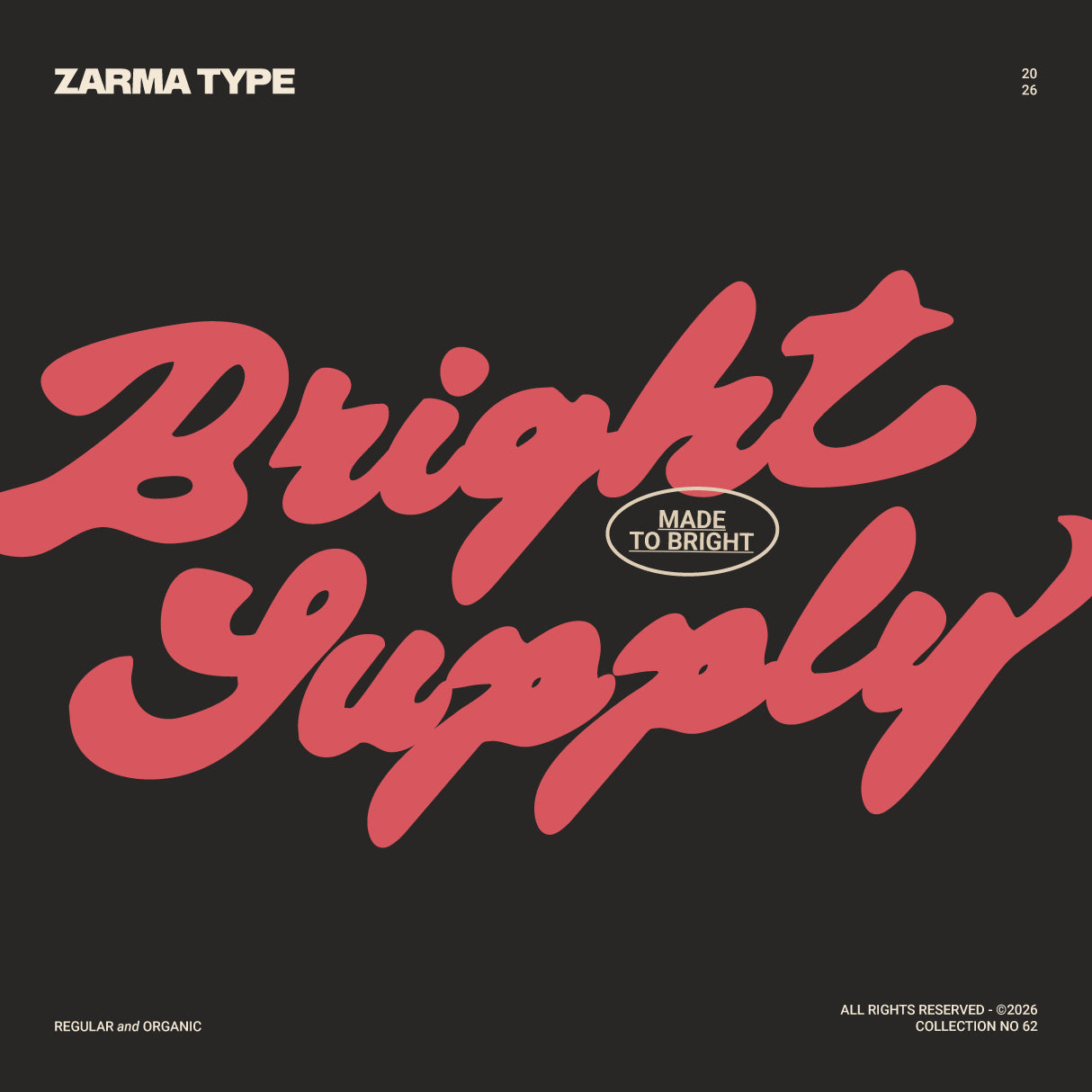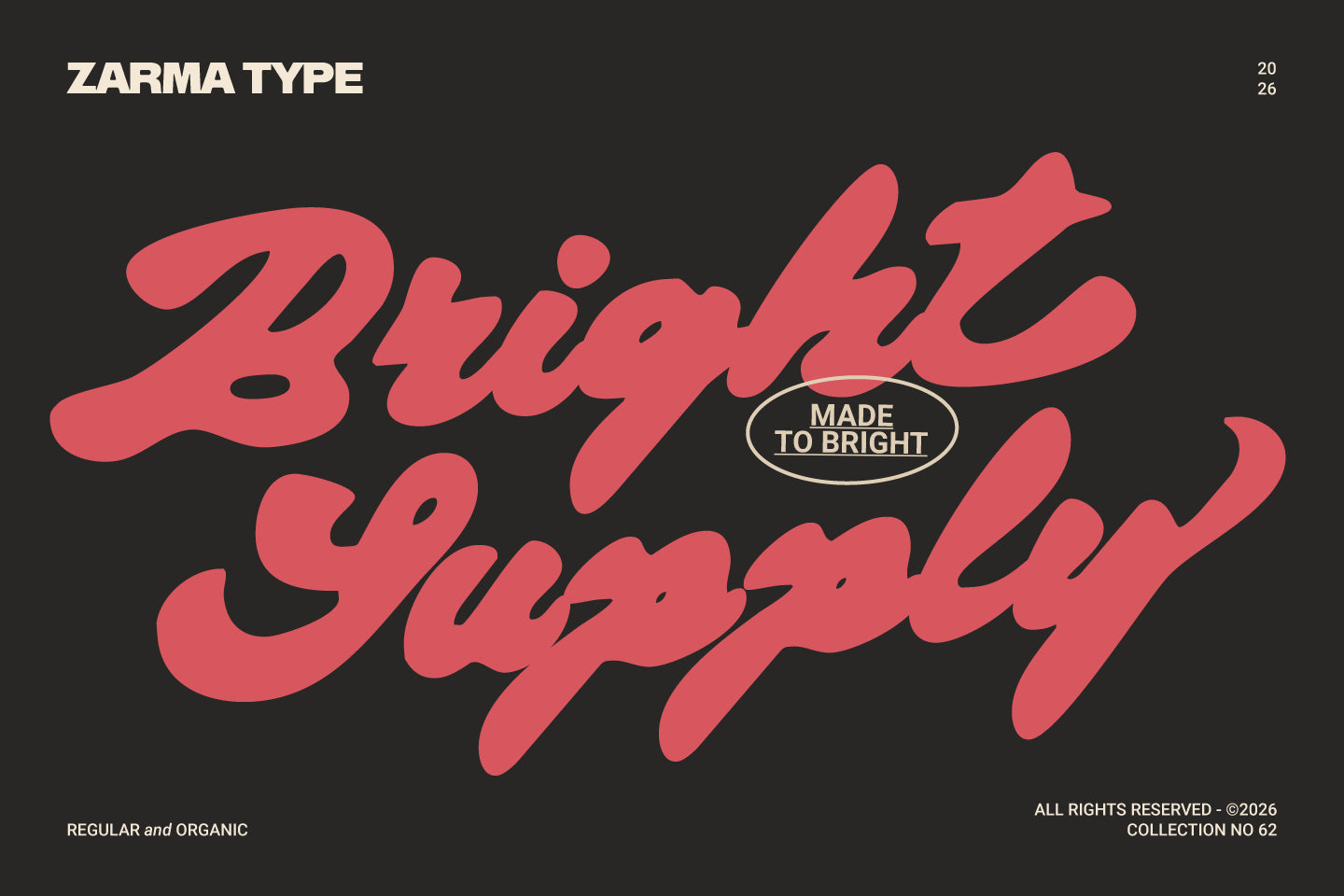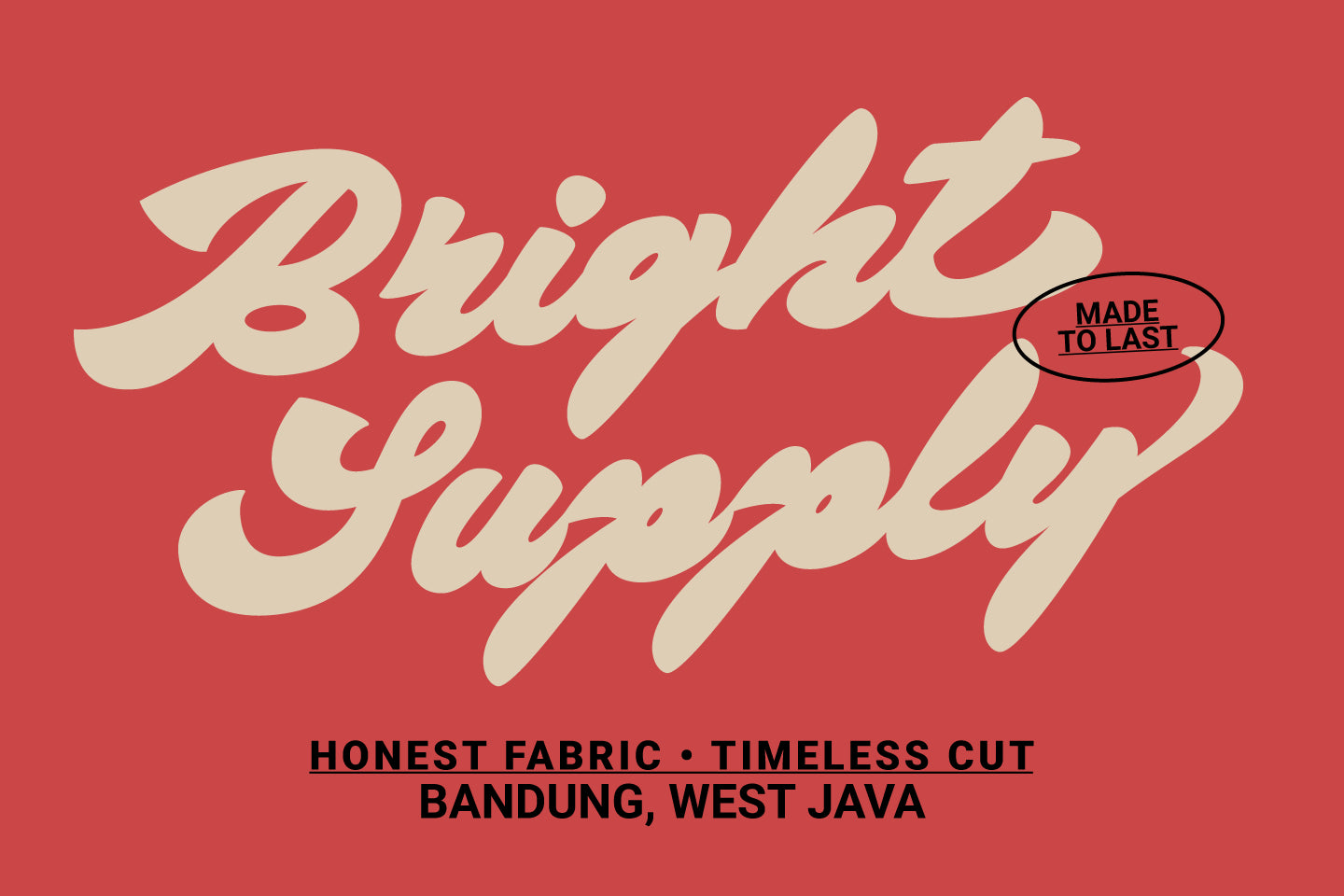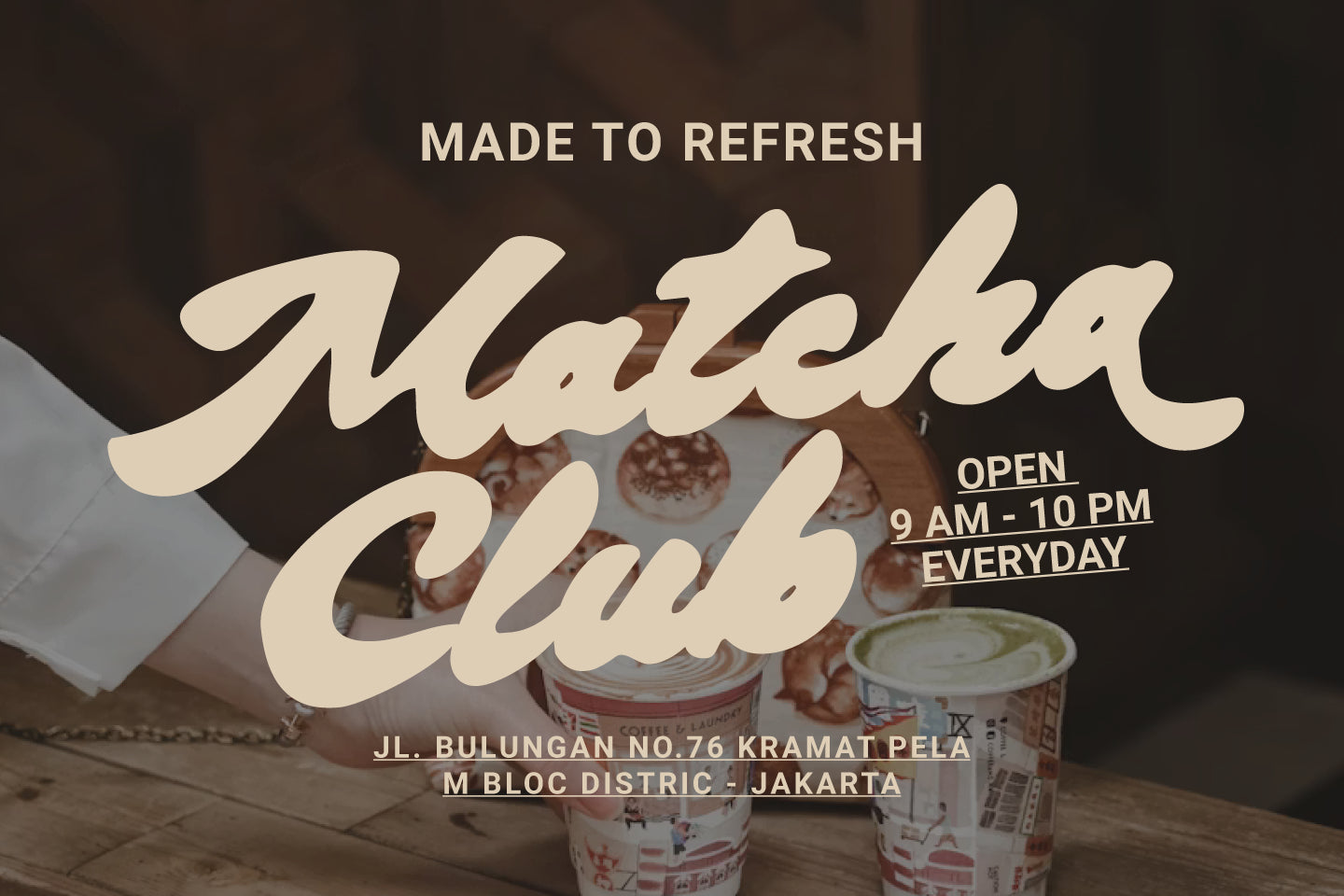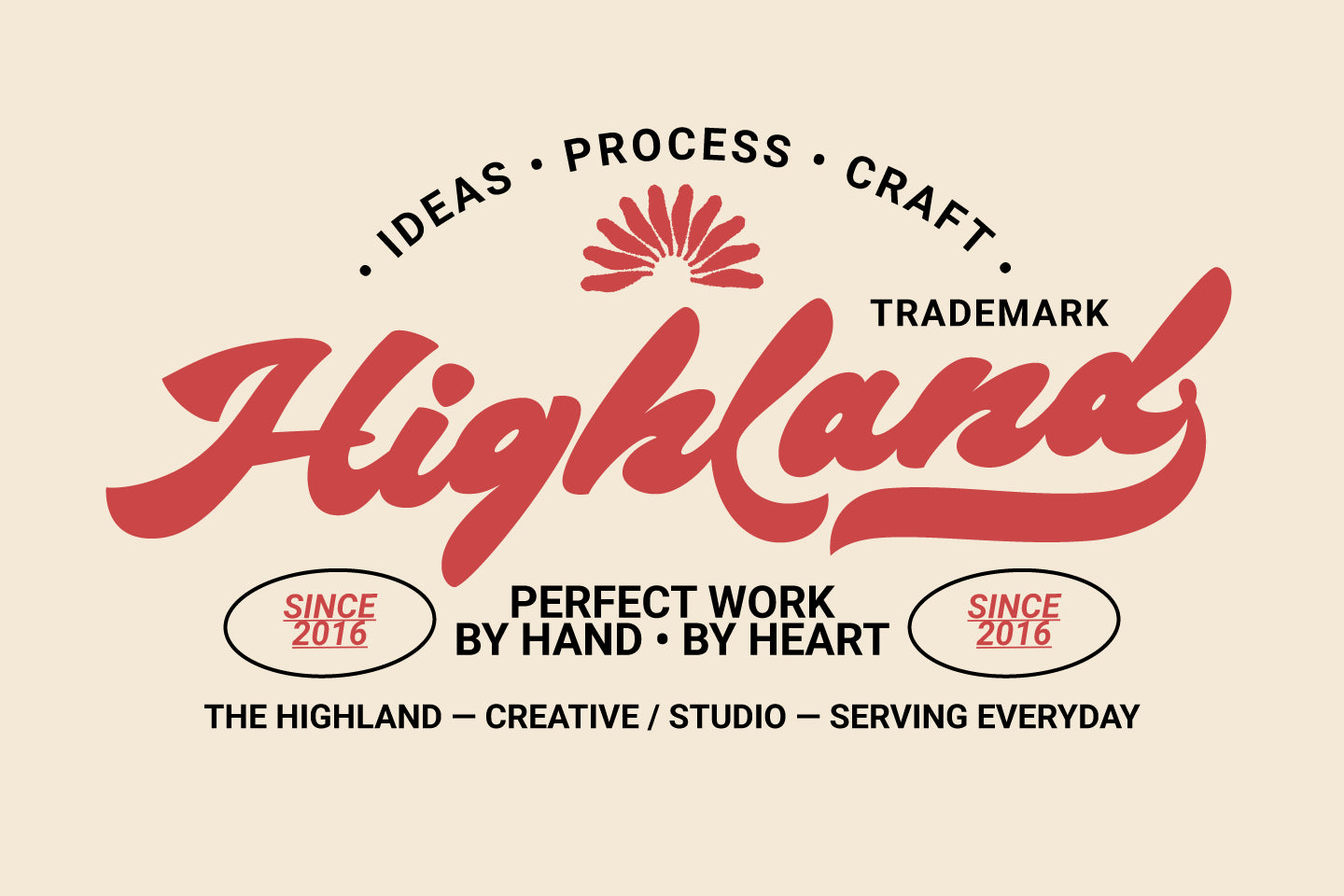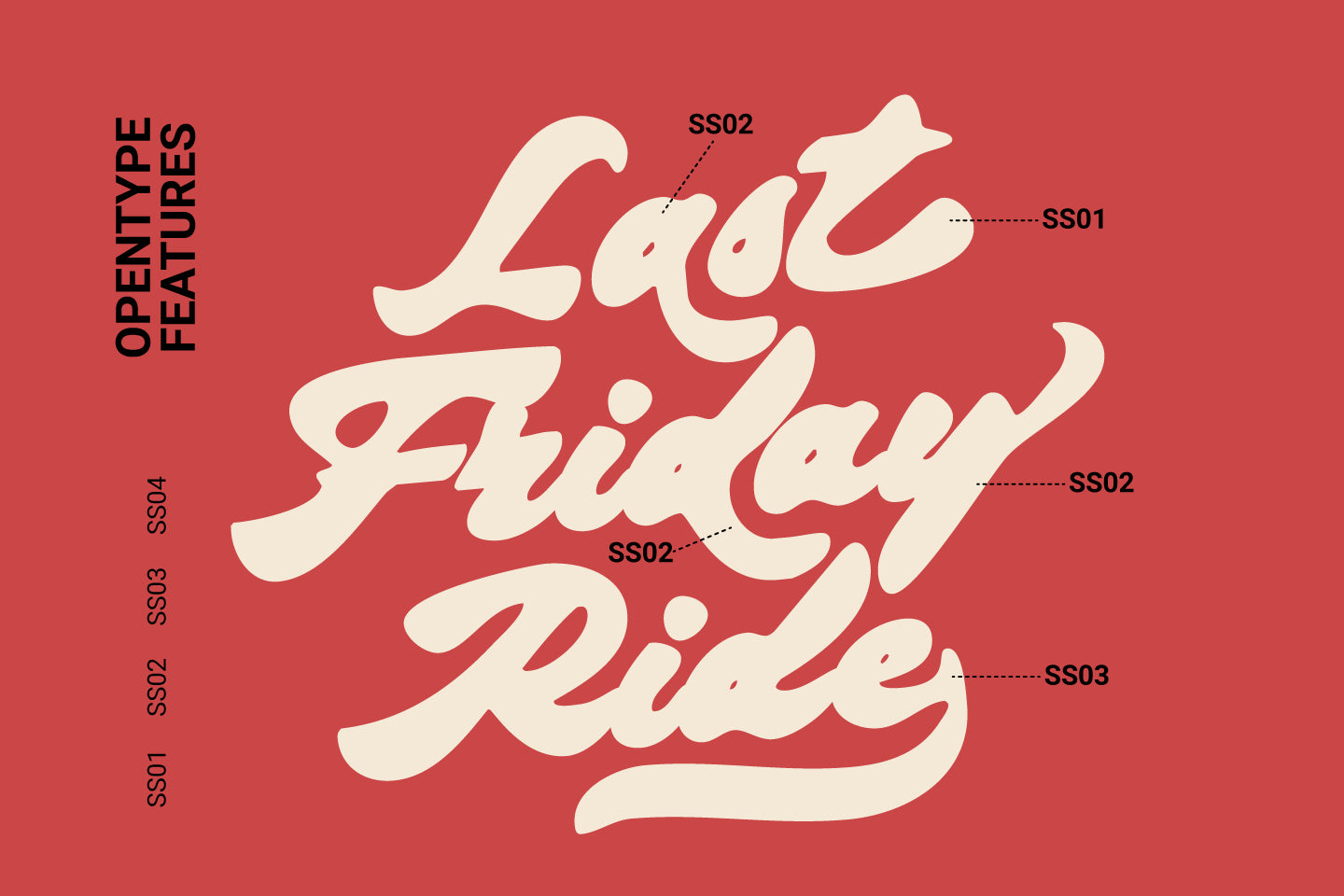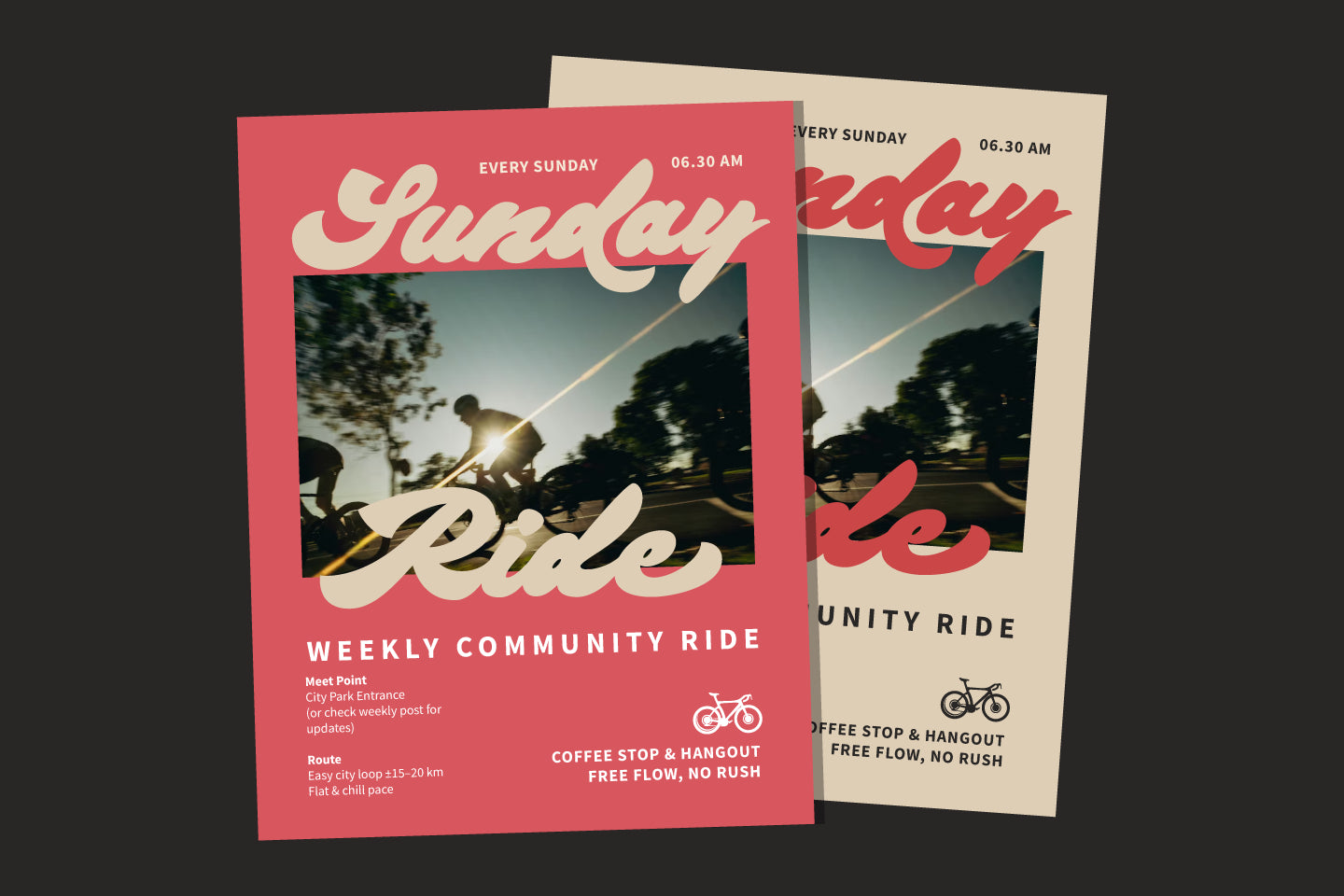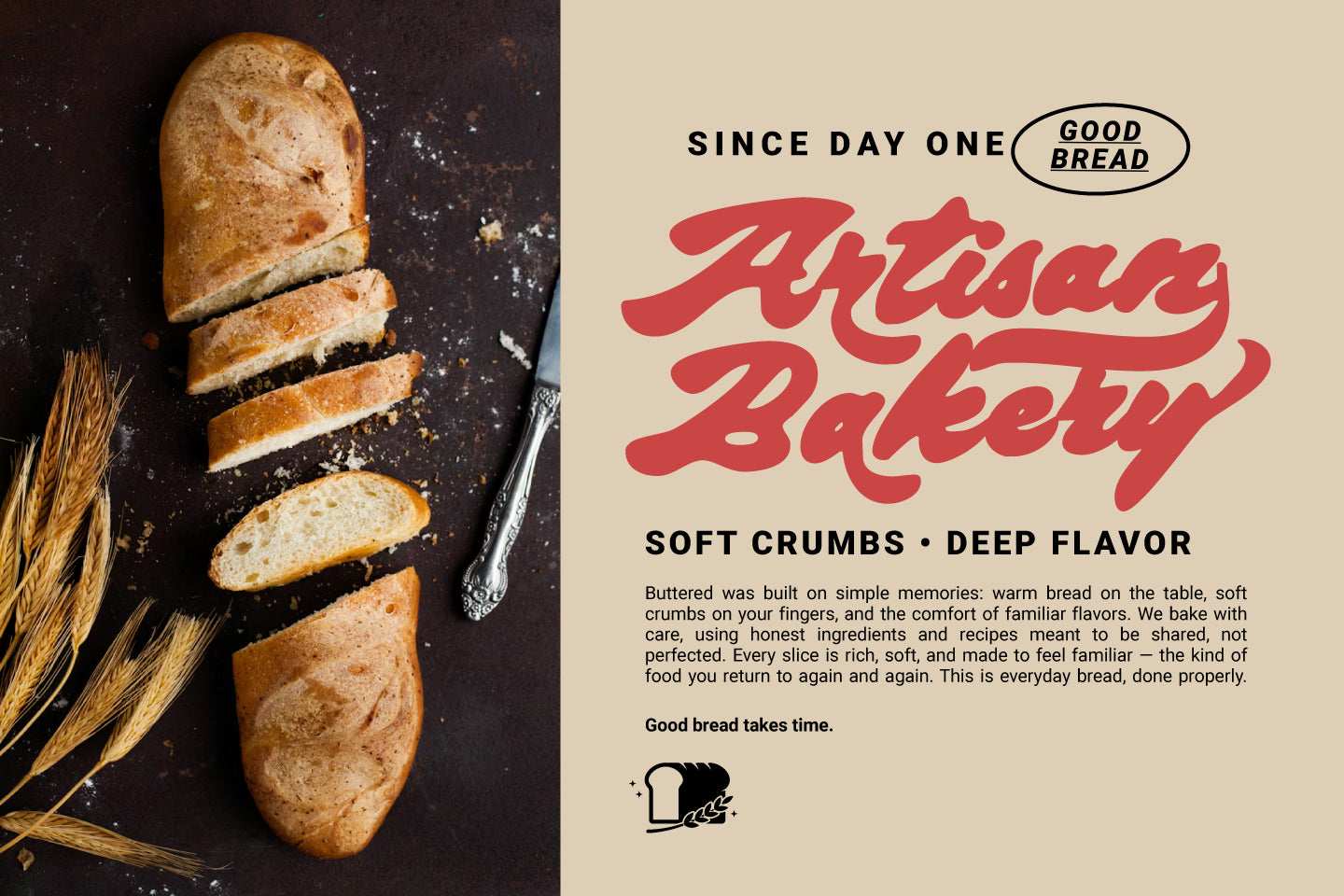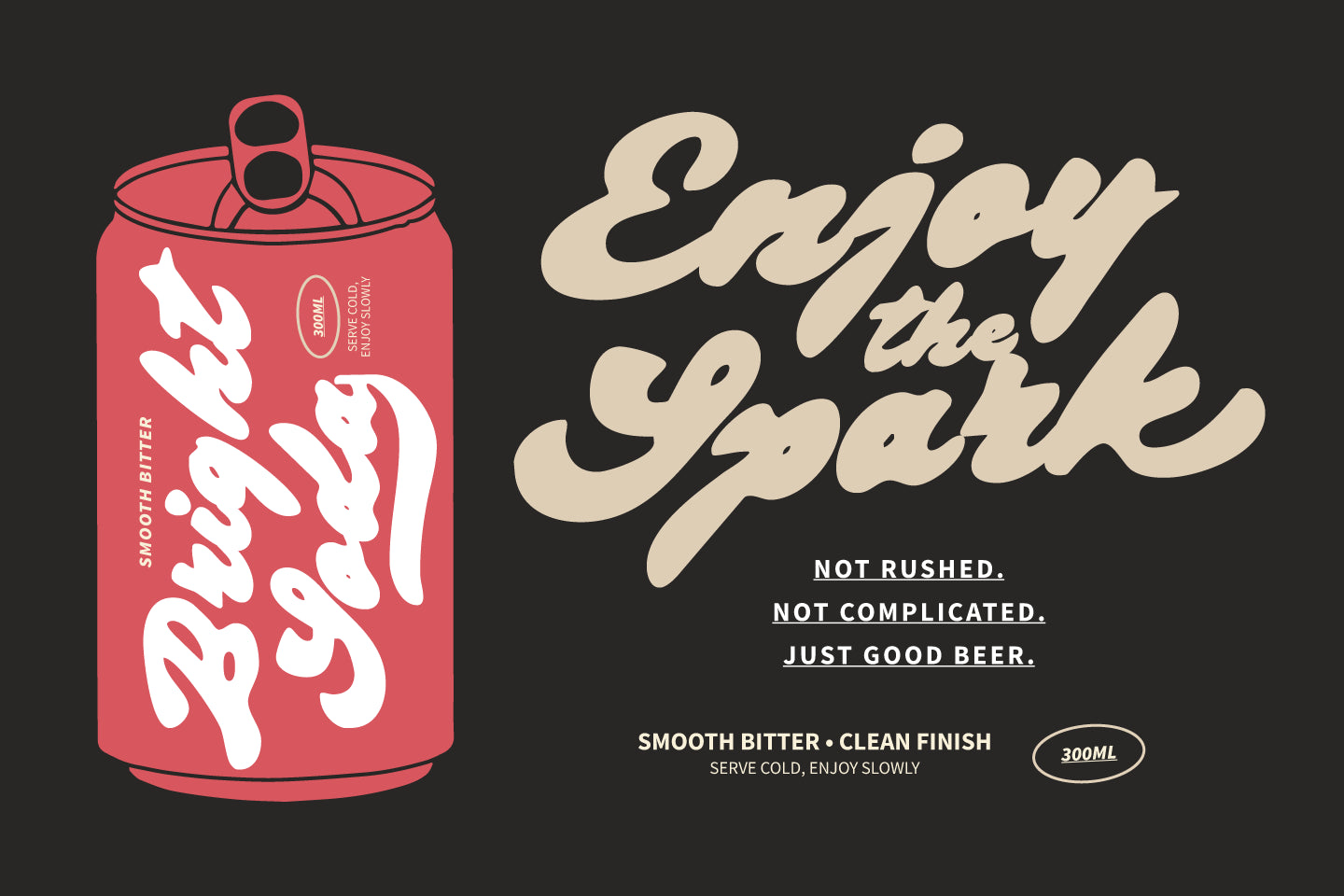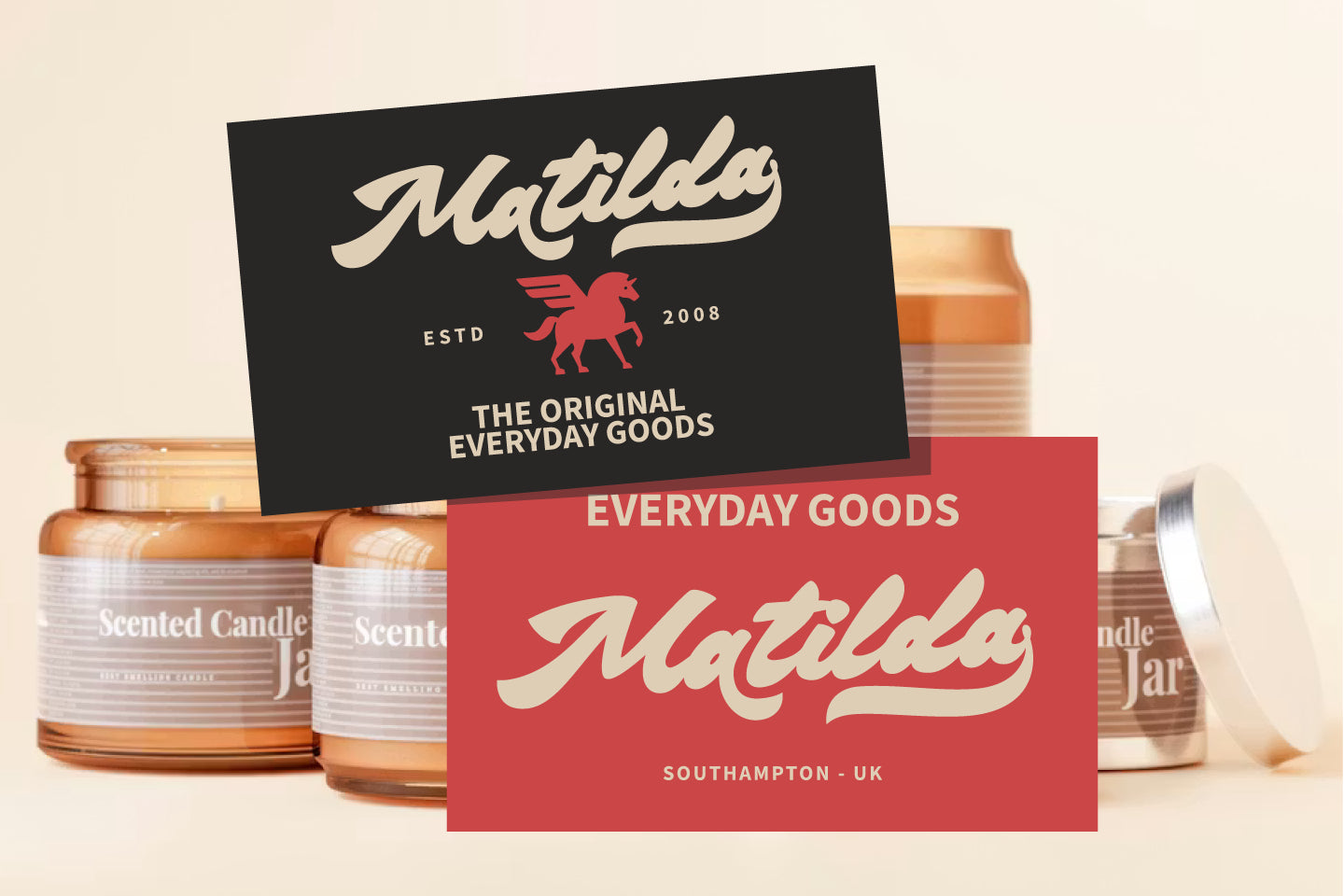
Bright Supply Font
Bright Supply is a bold Script Font designed to bring warmth, confidence, and handcrafted character into every design. Featuring thick flowing strokes, rounded curves, and expressive lettering, it creates eye-catching typography that feels both timeless and approachable. Available in 2 Script Styles—Regular and Organic—Bright Supply is perfect for logo design, café branding, bakery labels, beverage packaging, merchandise, posters, signage, social media graphics, and display headlines. The Regular style delivers a clean, polished look, while the Organic style introduces natural texture for a more authentic handmade feel.
Built for versatile branding, Bright Supply includes uppercase and lowercase characters, numbers, punctuation, ligatures, stylistic alternates, swashes, Multilingual Support, and PUA Encoded Characters for effortless creative control. Whether you're crafting a vintage-inspired identity or a modern artisanal brand, Bright Supply offers the perfect combination of bold script elegance, organic personality, and professional flexibility.
Bright Supply Font is a bold script font featuring thick flowing strokes and rounded curves, available in two styles: Regular and Organic. It includes uppercase and lowercase characters, numbers, punctuation, ligatures, stylistic alternates, swashes, multilingual support, and PUA encoded characters, making it suitable for a variety of design applications.